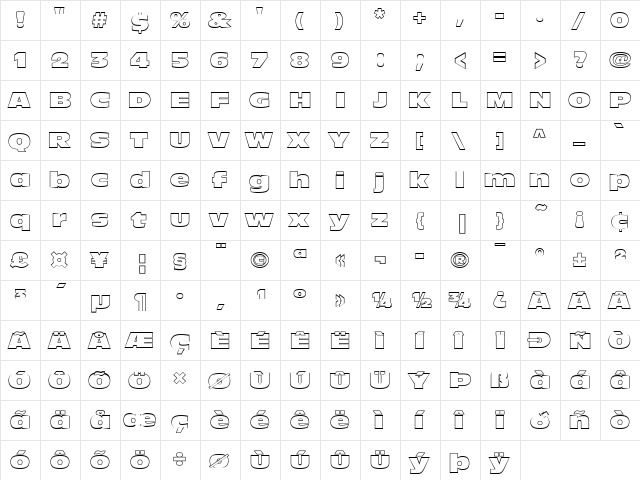
Antique Olive Nord Outline P Regular
Design Context for Antique Olive Nord Outline P Typeface
Antique Olive Nord Outline P wears its vintage influences proudly, with letterforms that recall mid-century signage, classic packaging, and nostalgia-driven design.
Ideal for diner signage, record shop branding, 70s/80s-themed projects, and heritage product labels.
Font Pairing: Combine Antique Olive Nord Outline P with a simple slab or neutral sans — period-accurate companions reinforce the vintage feel without competing for attention.
Pro Tip: Lean into Antique Olive Nord Outline P's period character by pairing it with aged paper textures, muted colour palettes, and vintage illustration styles.